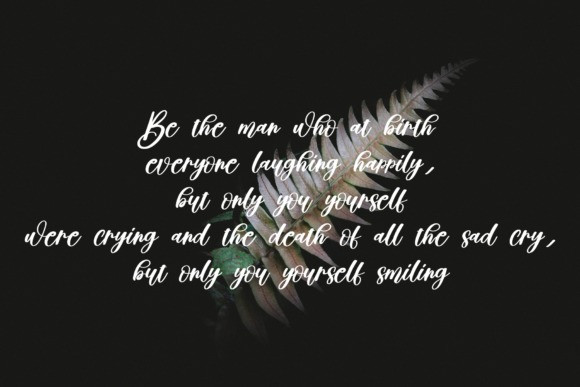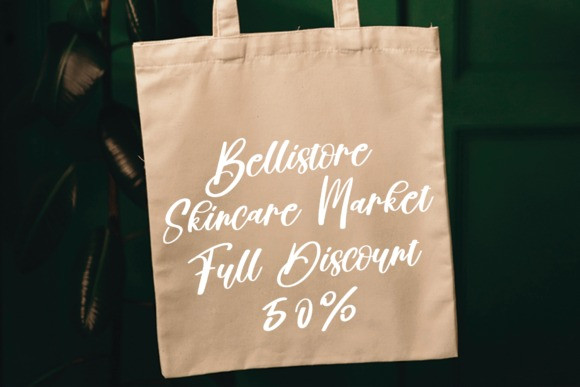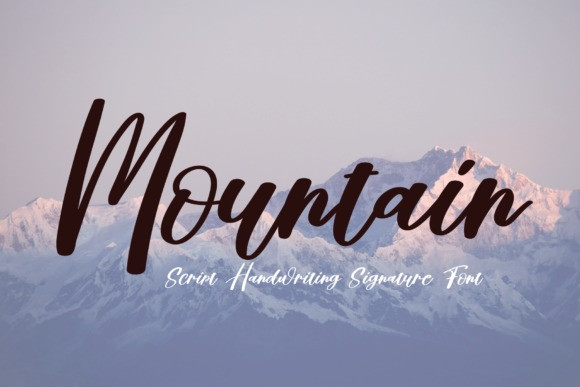
Casilla Handwritten Font
Casilla is a cute handwritten font with a natural sketch. This font is the perfect fit for all of your logos, branding, social media, and crafty DIY projects.